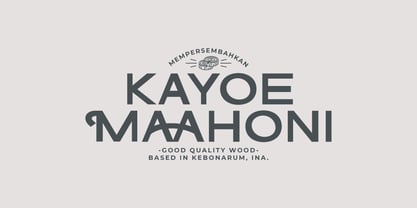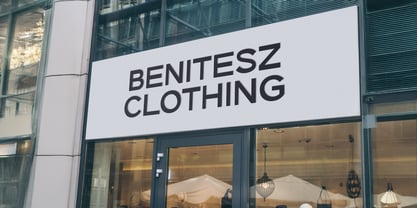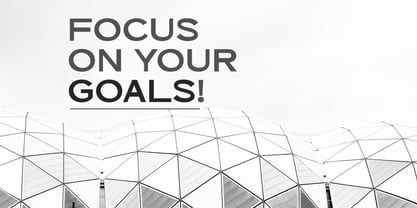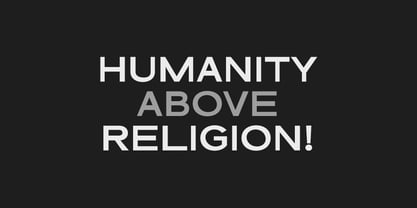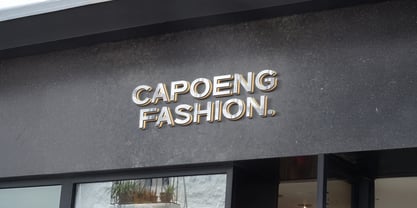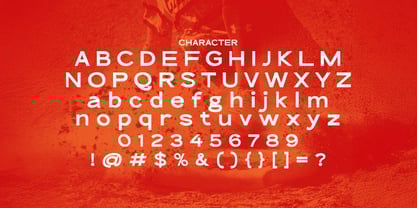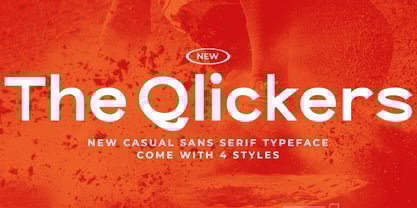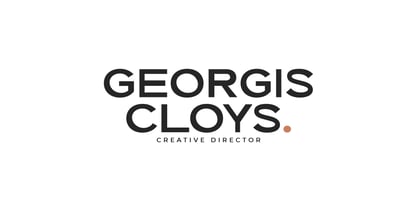
The Qlickers
von Stringlabs Creative Studio
Die Schriftfamilie The Qlickers wurde von Virgiawan Listanto entworfen und von Stringlabs Creative Studio veröffentlicht. The Qlickers enthält 4 Stile und Familienpaketoptionen.
The Qlickers is a casual sans serif font with a clean, playful personality. Its soft curves and relaxed style make it perfect for fun, approachable designs while keeping things clear and modern. Ideal for branding, social media, packaging, and everyday design, The Qlickers brings a laid-back charm that feels friendly and effortlessly stylish.
Designer: Virgiawan Listanto
Herausgeber: Stringlabs Creative Studio
Foundry: Stringlabs Creative Studio
Eigentümer des Designs: Stringlabs Creative Studio